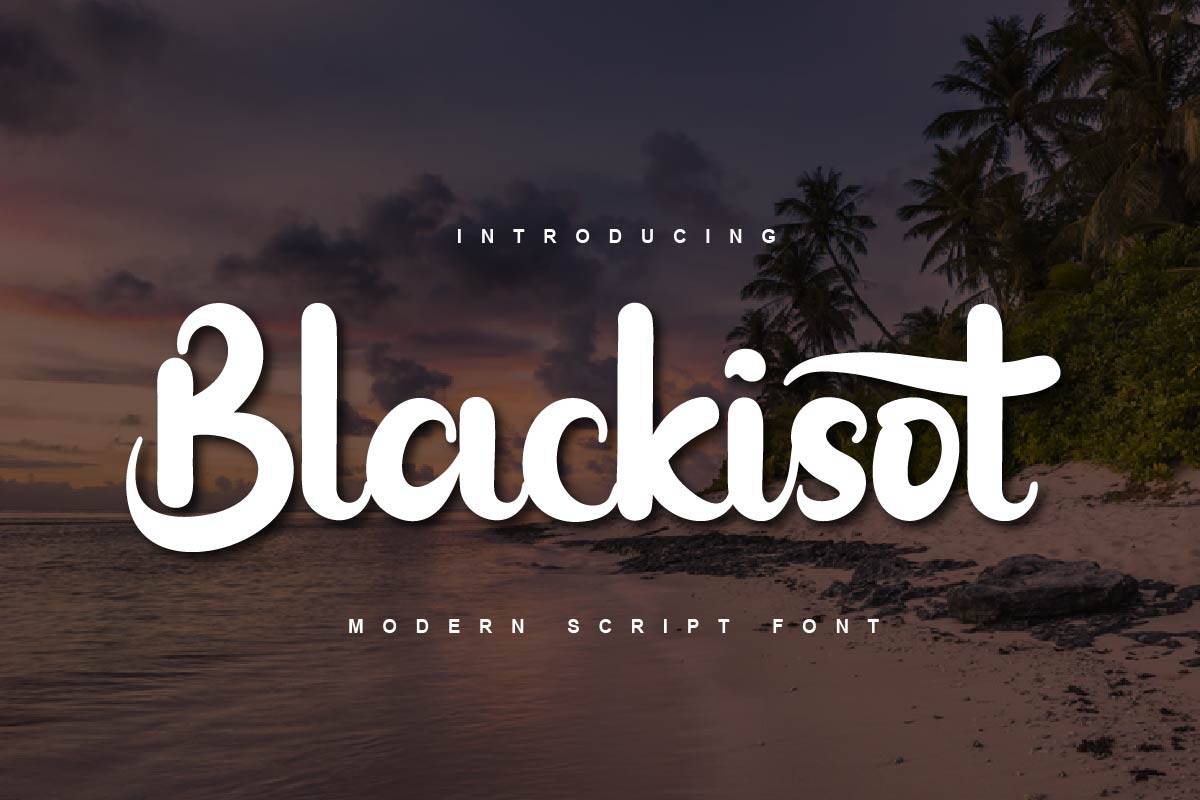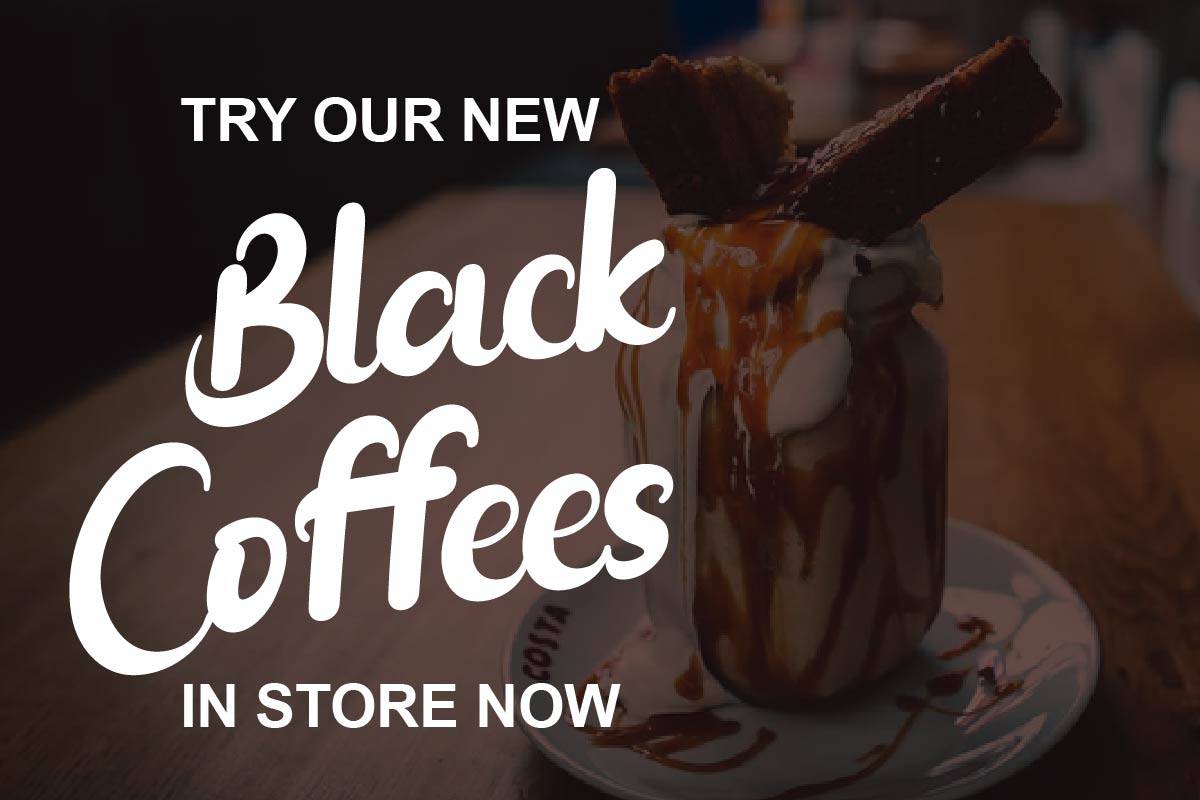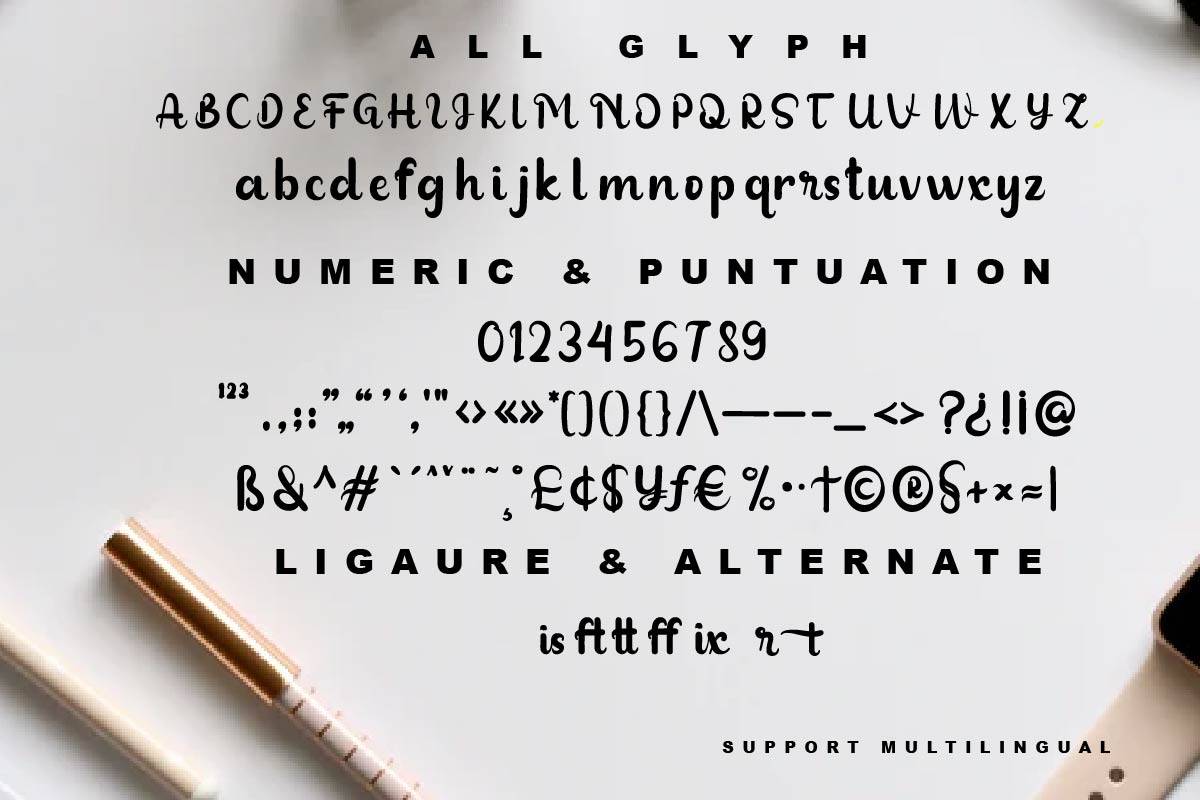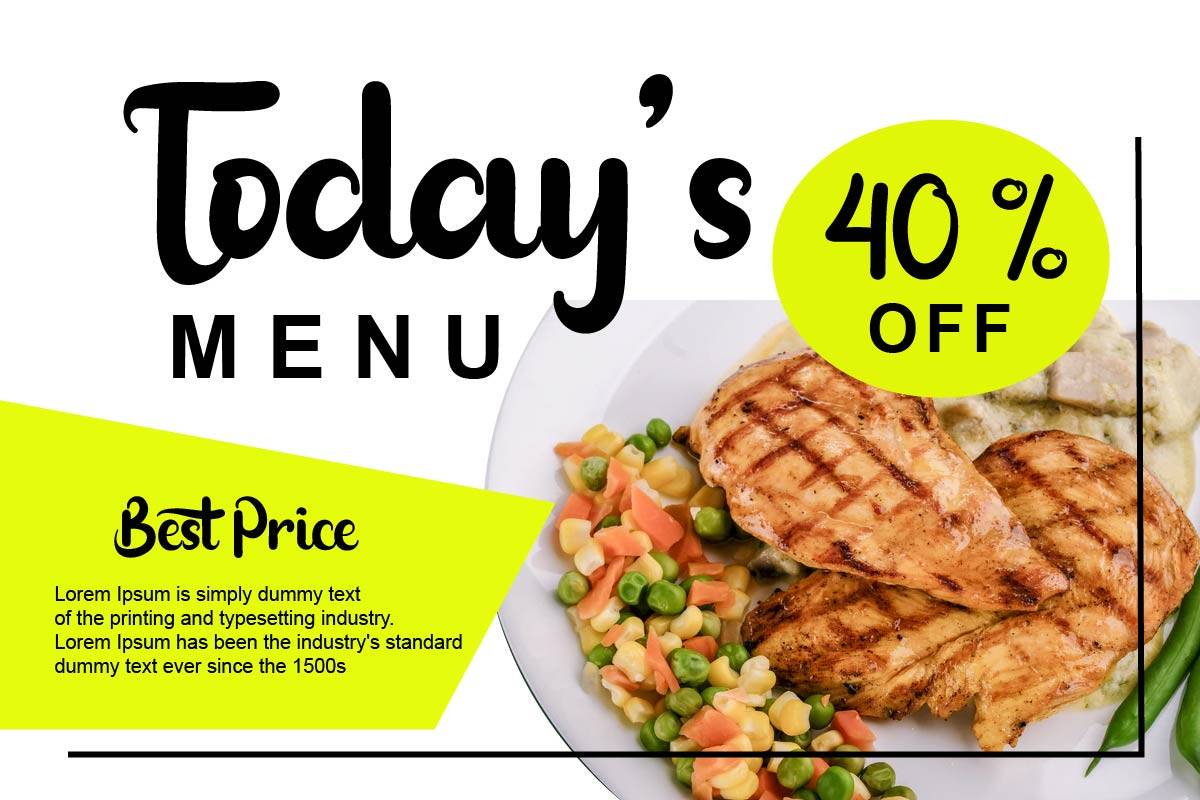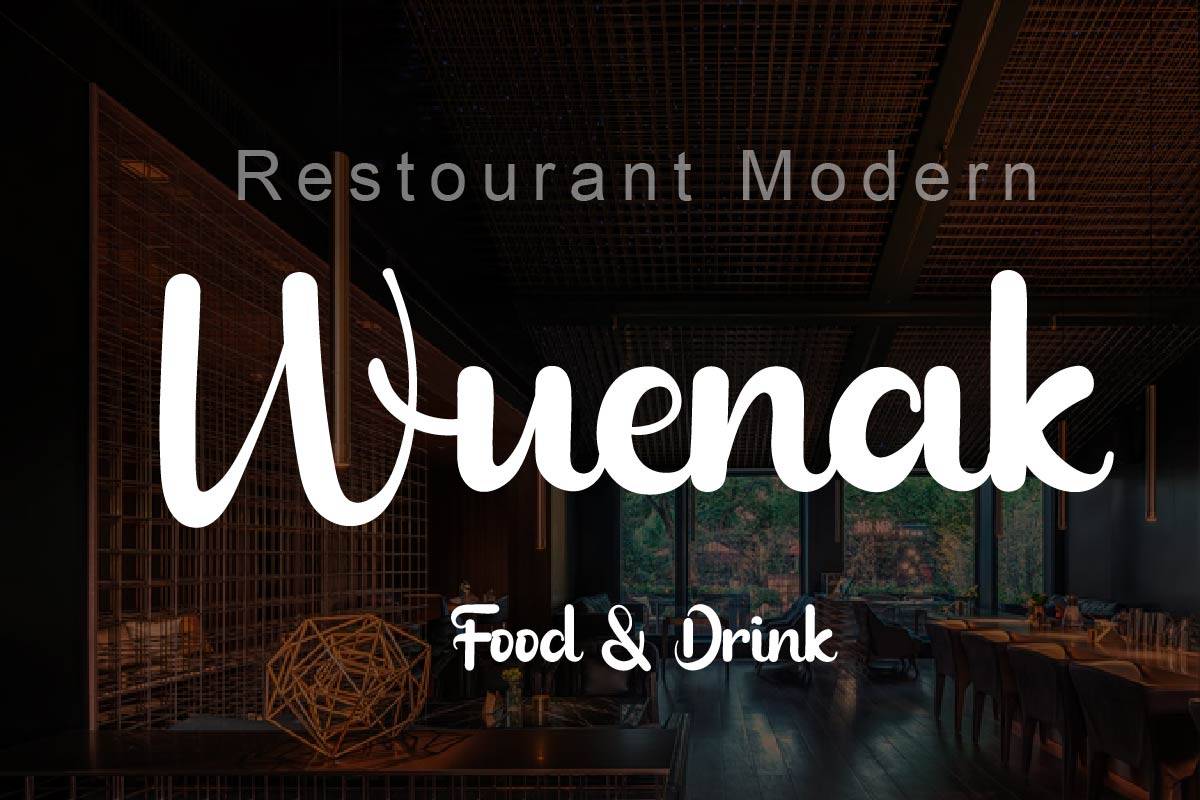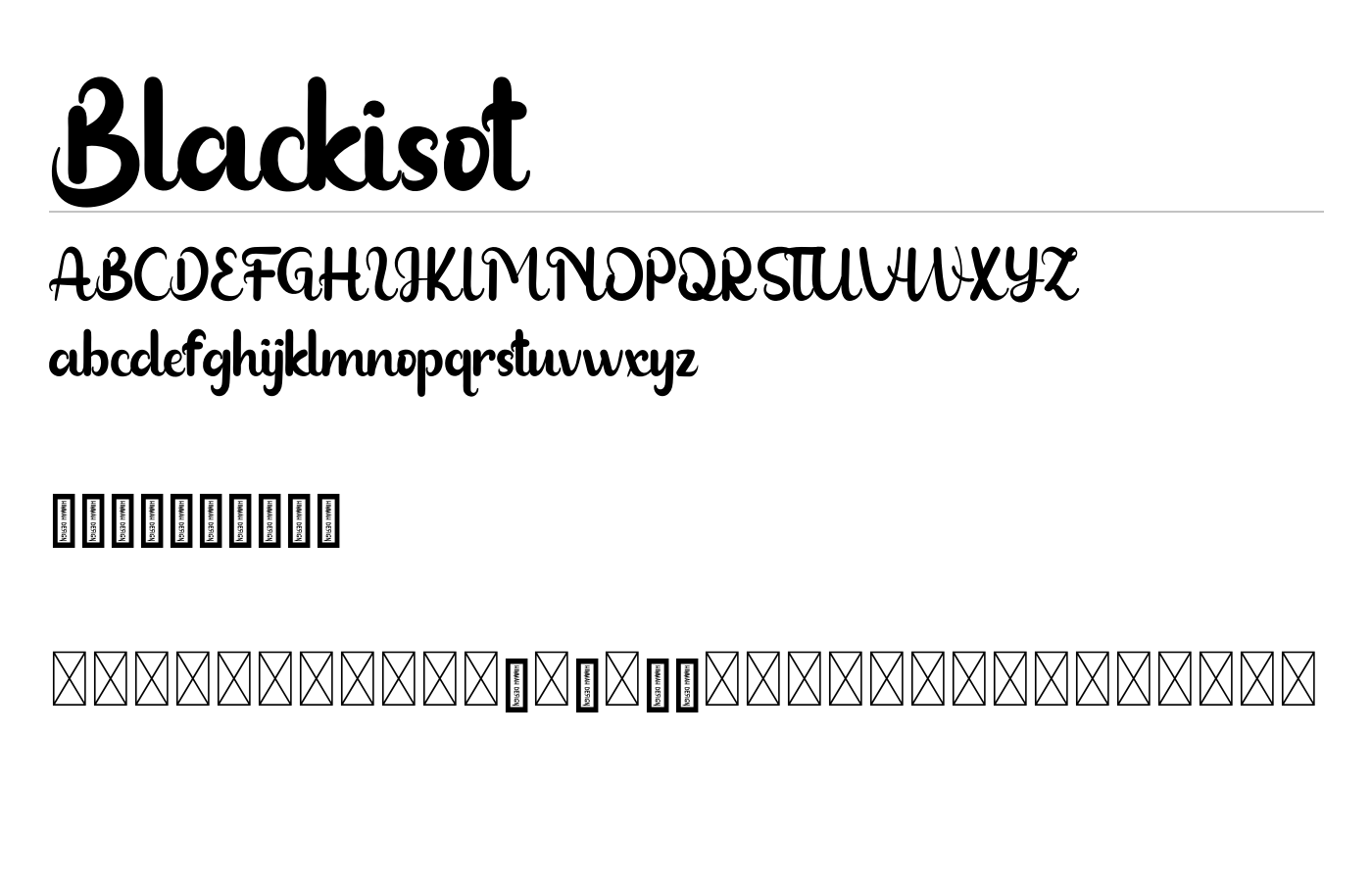
Blackisot is a bold, playful script font with a friendly and casual vibe, featuring smooth, rounded strokes and a slightly condensed width that adds personality without sacrificing readability. Its lively letterforms, including distinctive loops and curves, make it ideal for creative headlines, logos, and branding where an approachable yet stylish impression is desired. This font works well in projects seeking a fun, energetic feel, such as packaging, posters, and social media graphics.